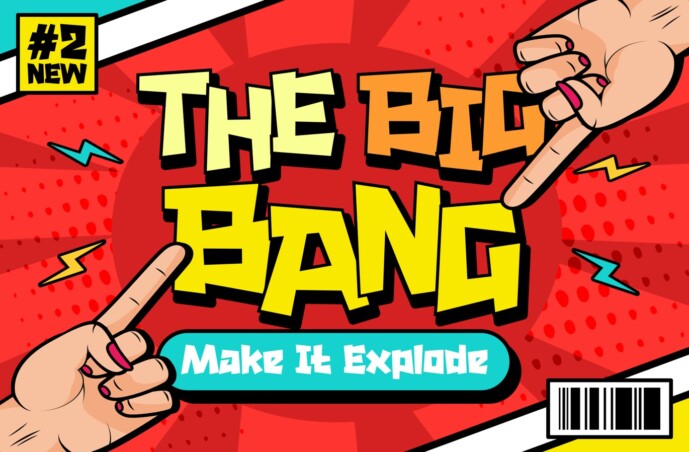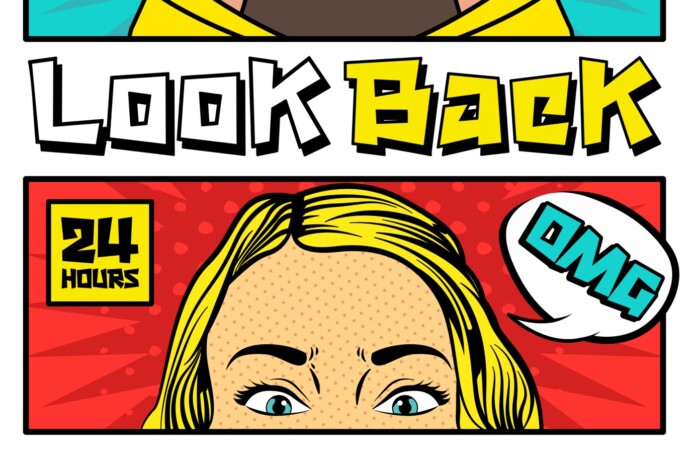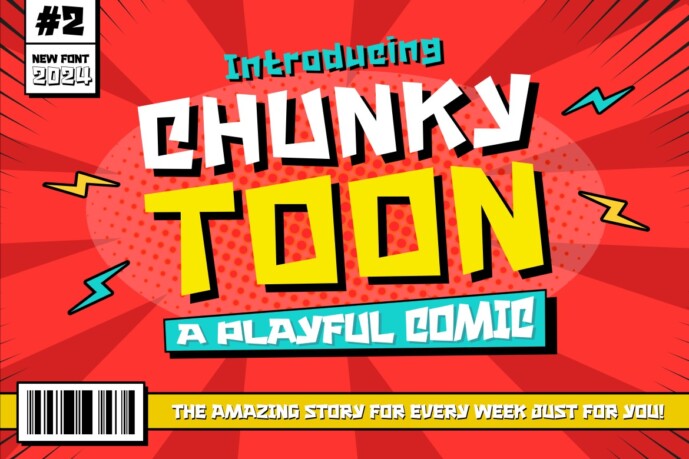
Chunky Toon Font
Chunky Toon Font – Playful Display Font. This font is characterized by reflecting joy, cheerfulness and a bright atmosphere with a handwritten style that is often found in comics or cartoons. This font is perfect for projects that want to highlight playful and fun elements, such as poster designs, invitation cards, comics or promotional materials aimed at a younger audience or those looking for a fun atmosphere.